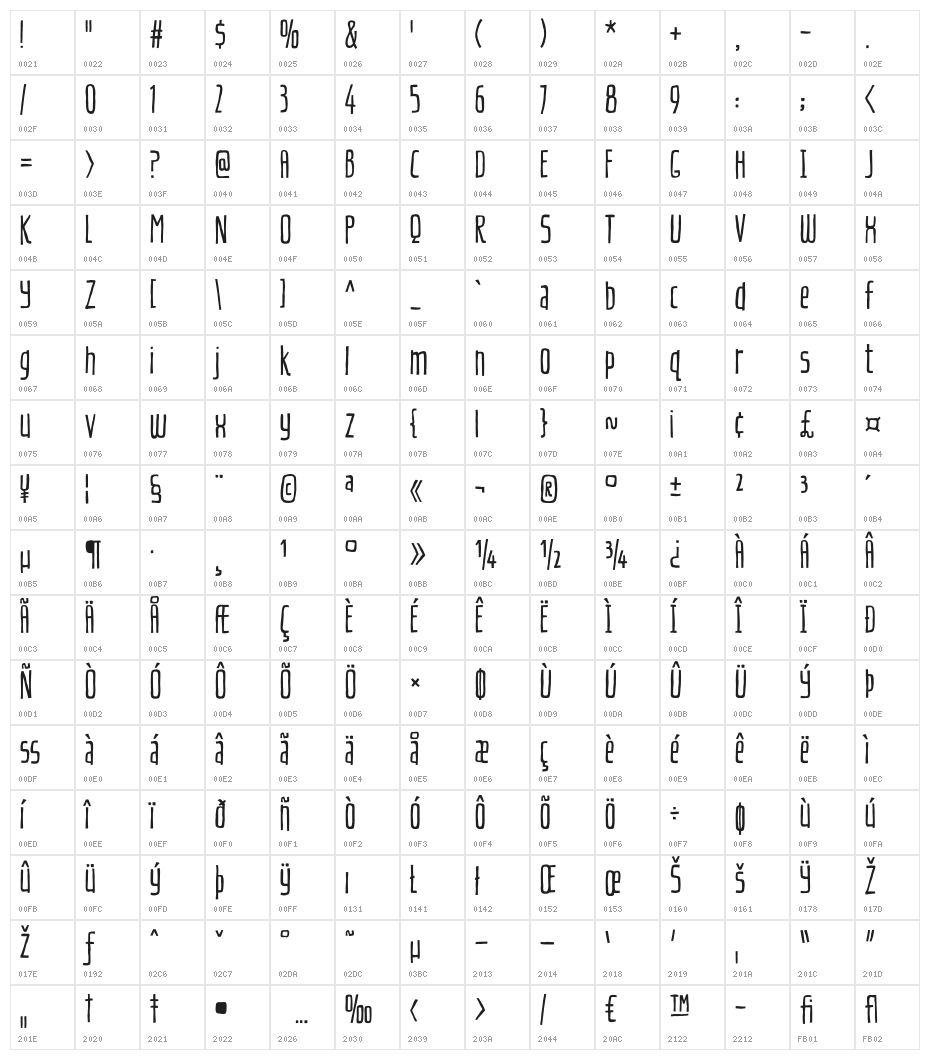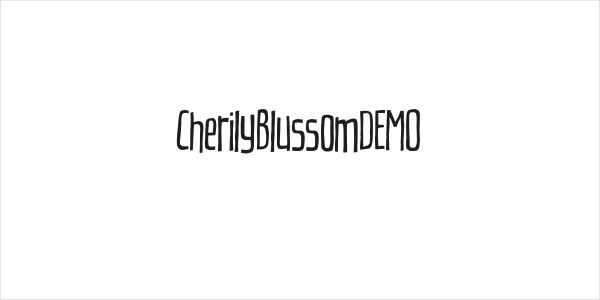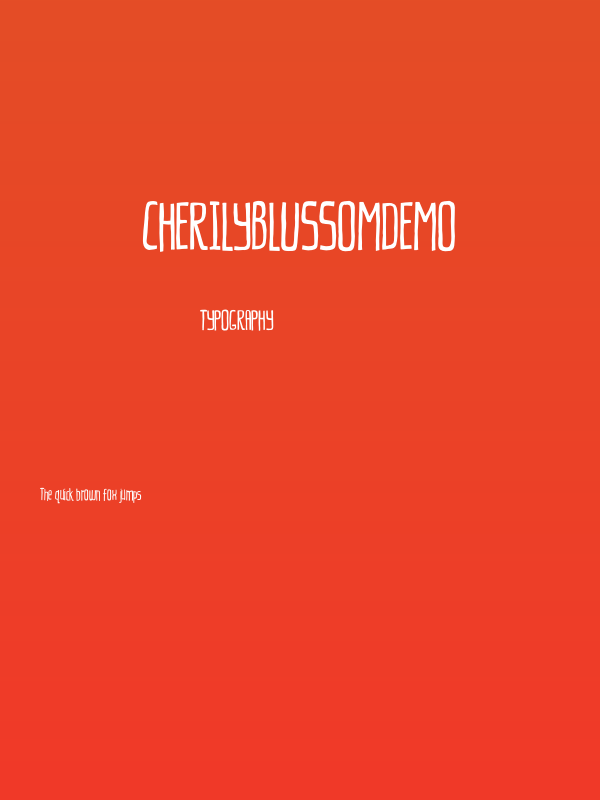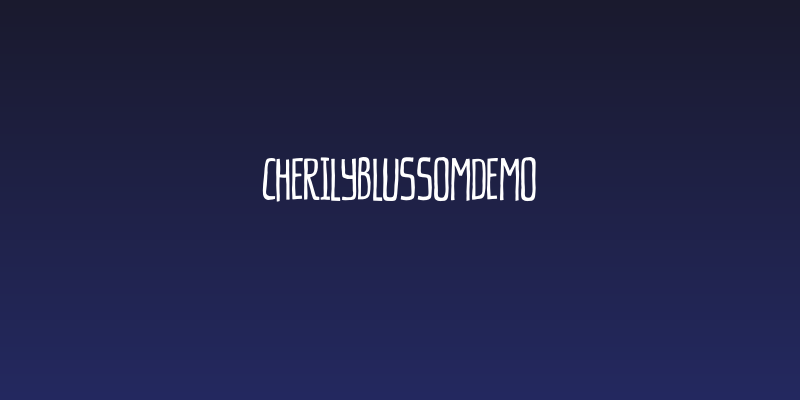
CherilyBlussomDEMO Font
CherilyBlussomDEMO Description
This font features a playful and quirky design with elongated, slightly irregular letterforms that give it a hand-drawn appearance. The uppercase and lowercase letters maintain a consistent height, contributing to a uniform look despite the whimsical style. The numbers and special characters follow the same playful aesthetic, making the font suitable for creative and informal applications. The strokes are moderately thick, providing good readability while maintaining a unique character. This font is ideal for projects that require a touch of personality and creativity.
| Proposed Projects | Ideal for children's books, creative posters, greeting cards, and playful branding. |